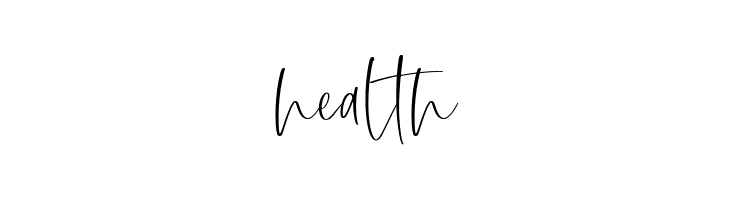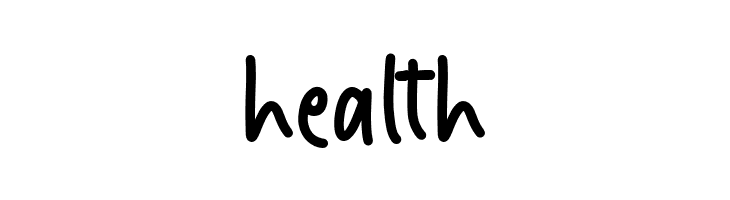
( Fonts by Forberas Club )
A playful and elegant handwritten font with flowing, connected letterforms.
( Fonts by Vunira Design )
A modern, elegant script font with a flowing, cursive style.
( Fonts by Vunira Design )
A modern, elegant script font with fluid, connected letterforms.
( Fonts by Andi Moz )
A playful and whimsical script font with fluid, expressive letterforms.
A dynamic, elegant cursive script with modern and classic elements.
( Fonts by Integritype Studio )
An elegant script font with flowing, interconnected letters and refined swirls.
( Fonts by Alpaprana Studio )
A playful, casual handwritten font with smooth, rounded edges.
( Fonts by Timur Type )
A fluid and expressive handwritten font with thin, elegant strokes.
( Fonts by Marsya C )
A playful, hand-drawn font with bold, rounded strokes and a friendly appearance.
A dynamic, expressive handwritten font with fluid, flowing letterforms.